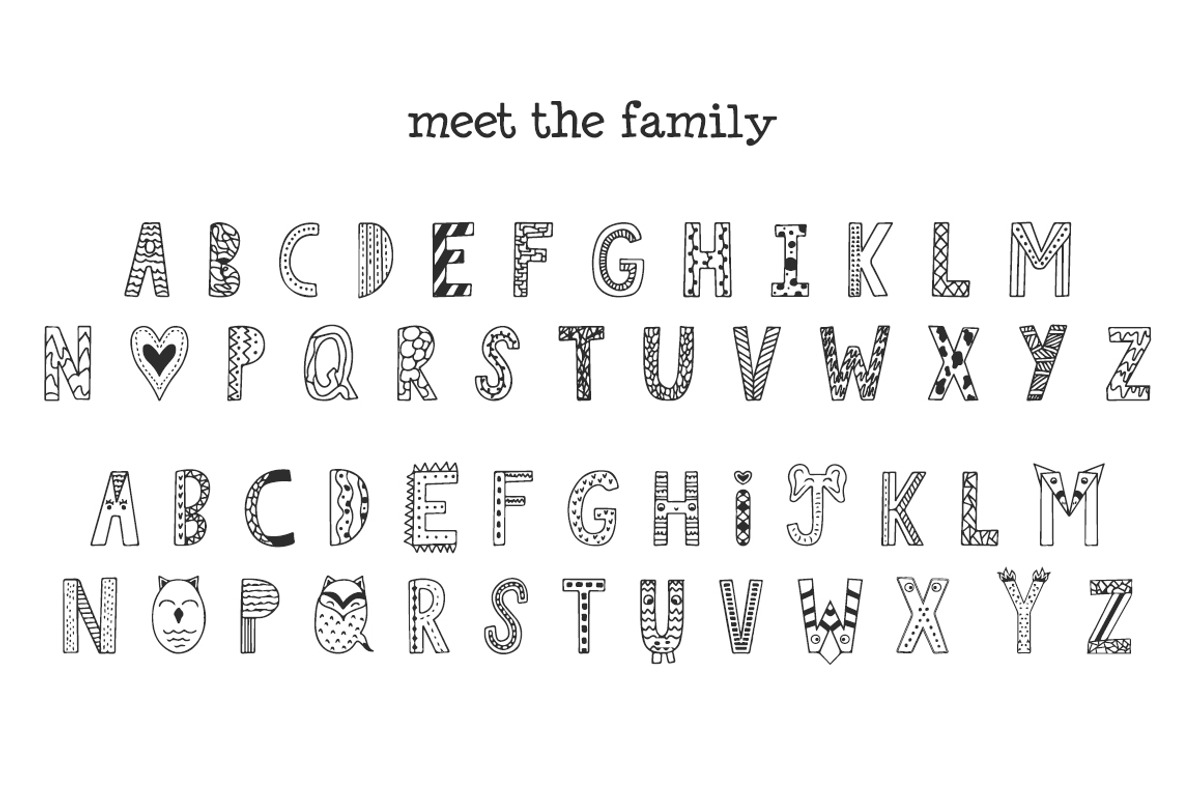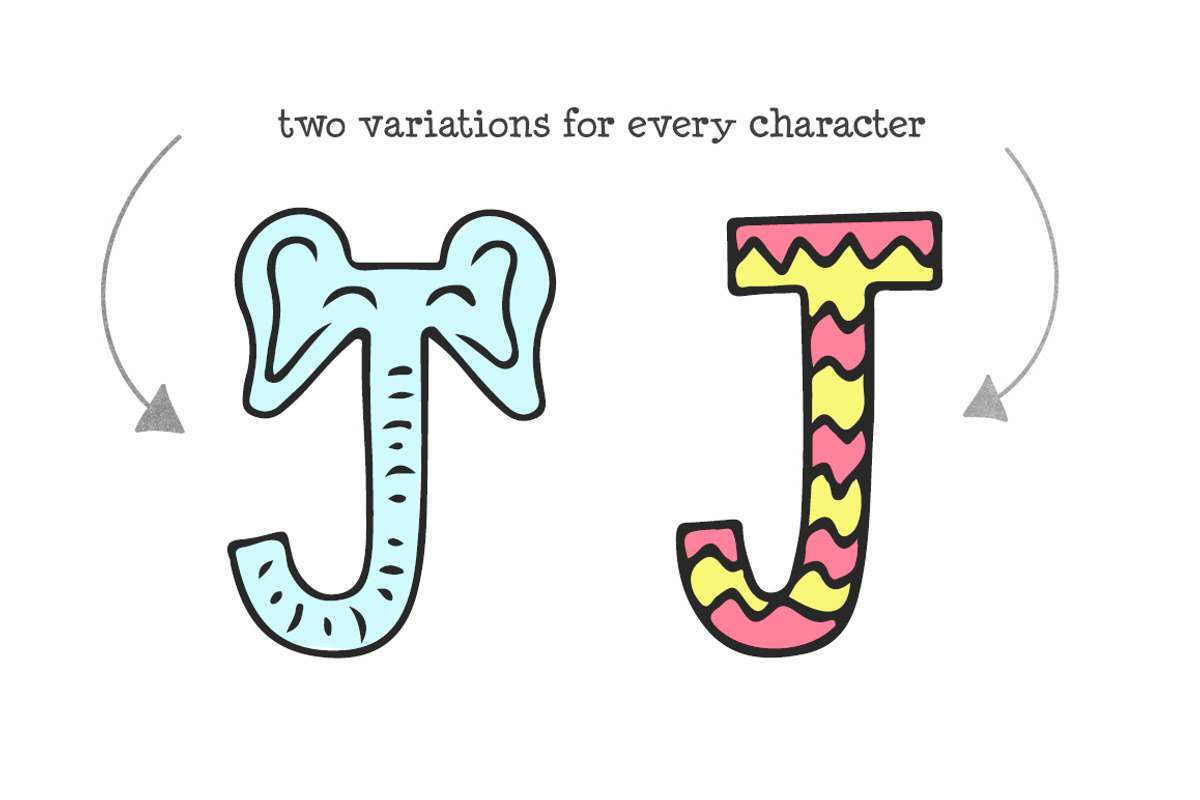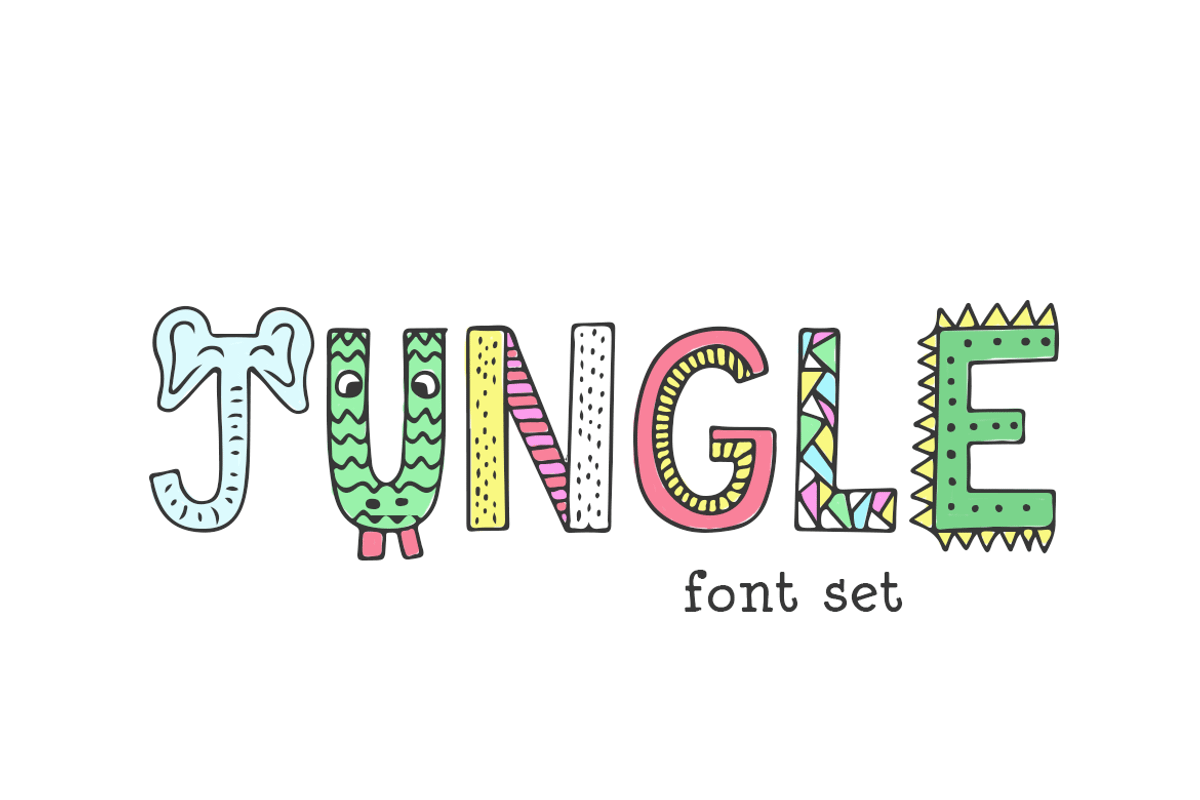
Jungle Character Font
Meet the Jungle font, full of 52 different creatively created unique characters. Color them in or leave them blank, either way they are super cute.
Why Jungle Character Font is worth a look
Jungle Character Font by Salt & Pepper Designs fits naturally into Branding, posters, packaging, typography.